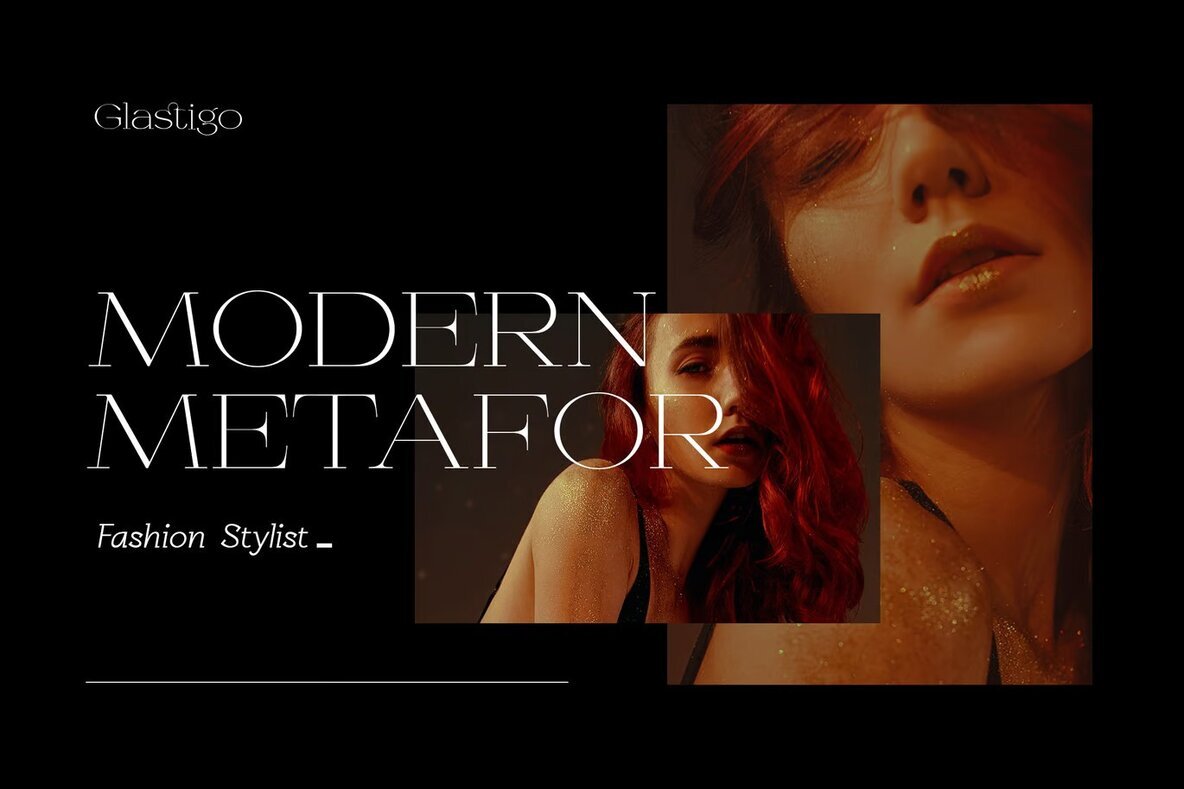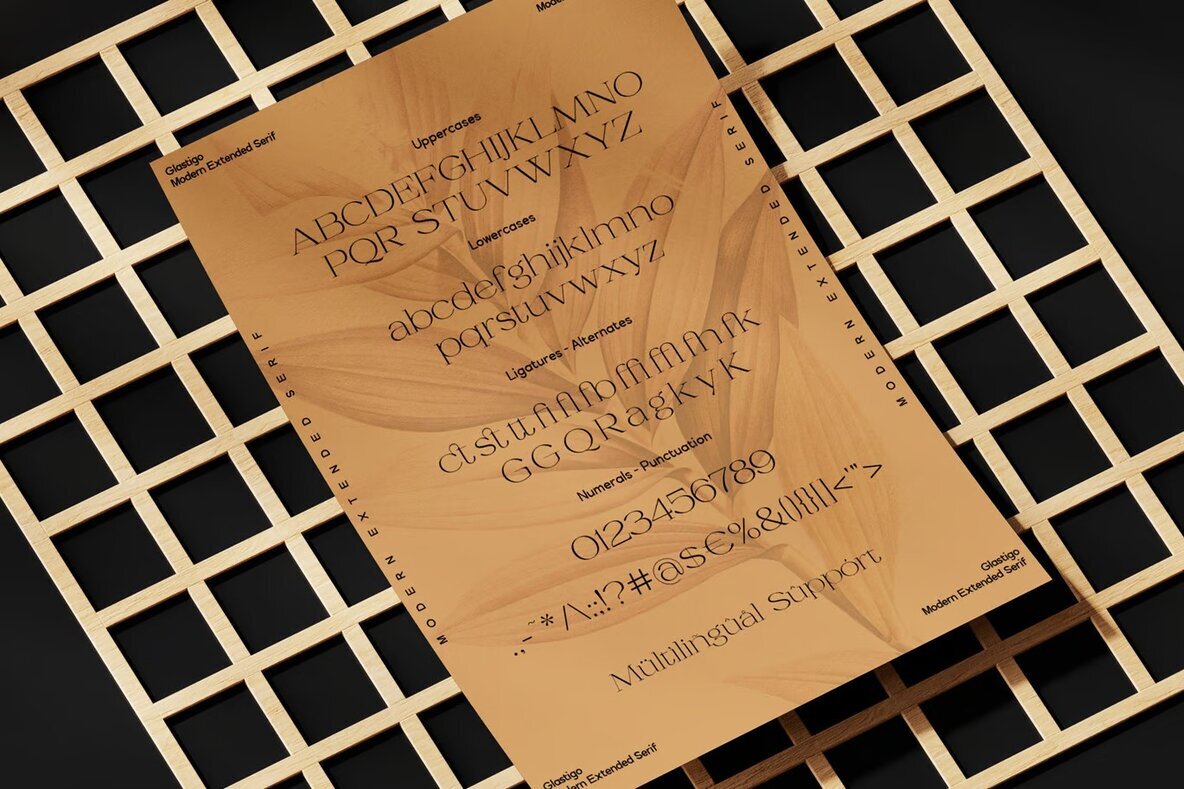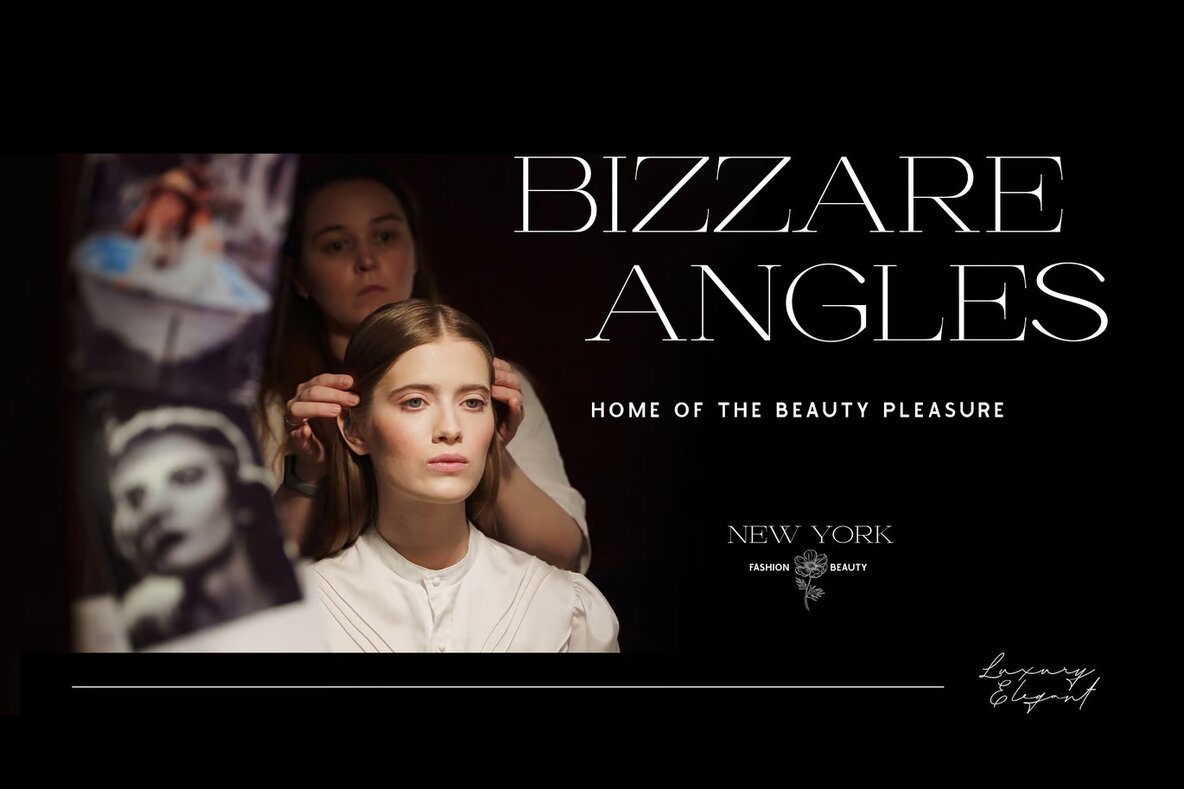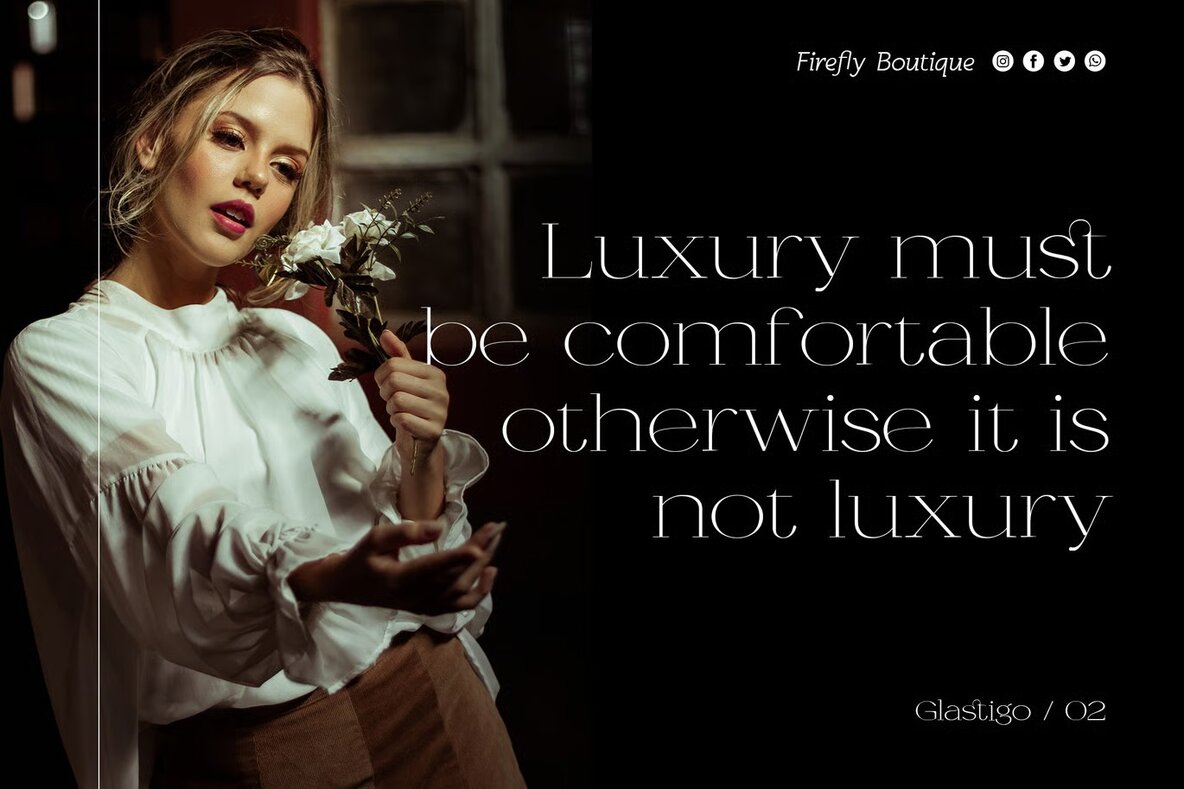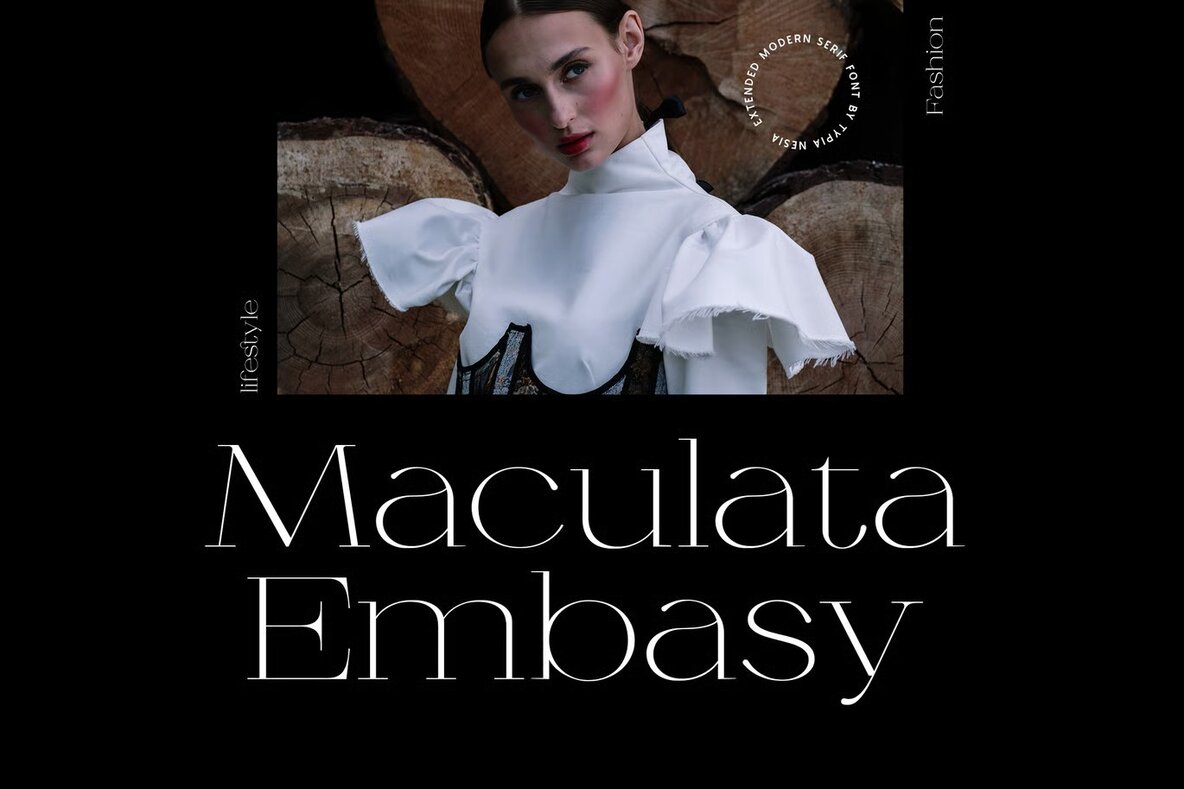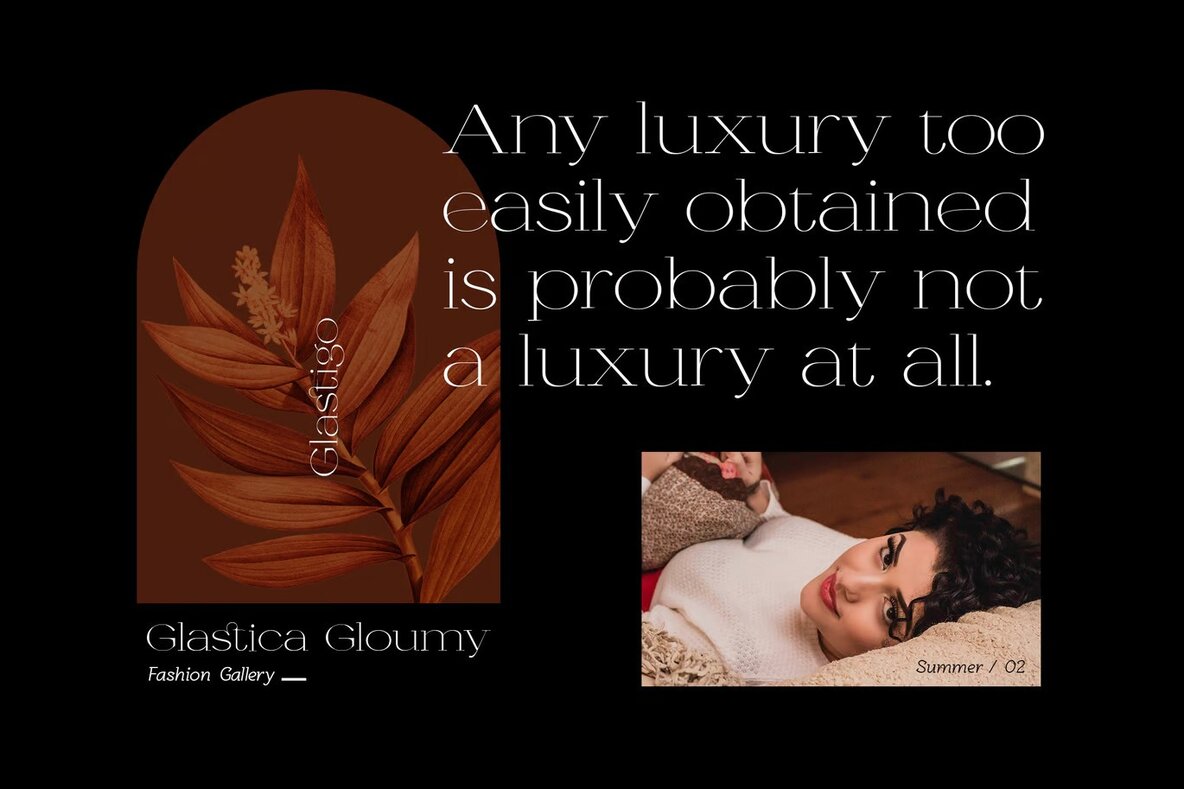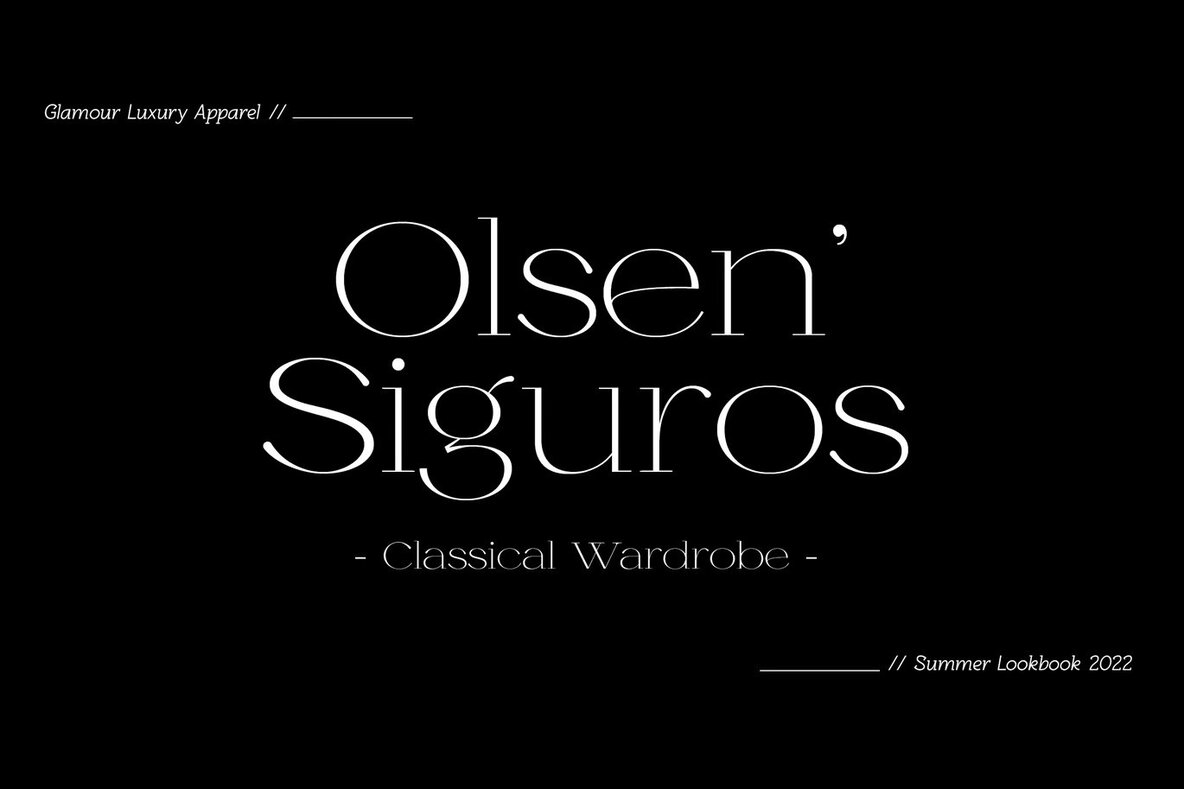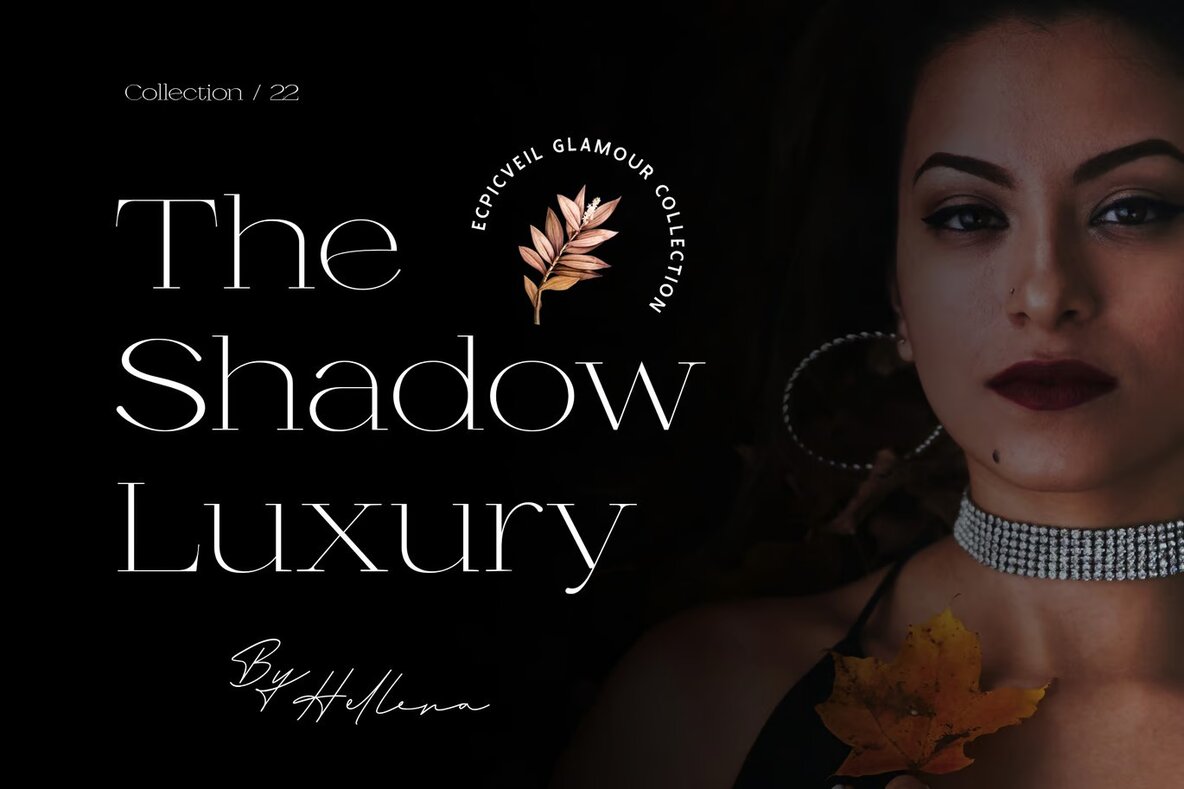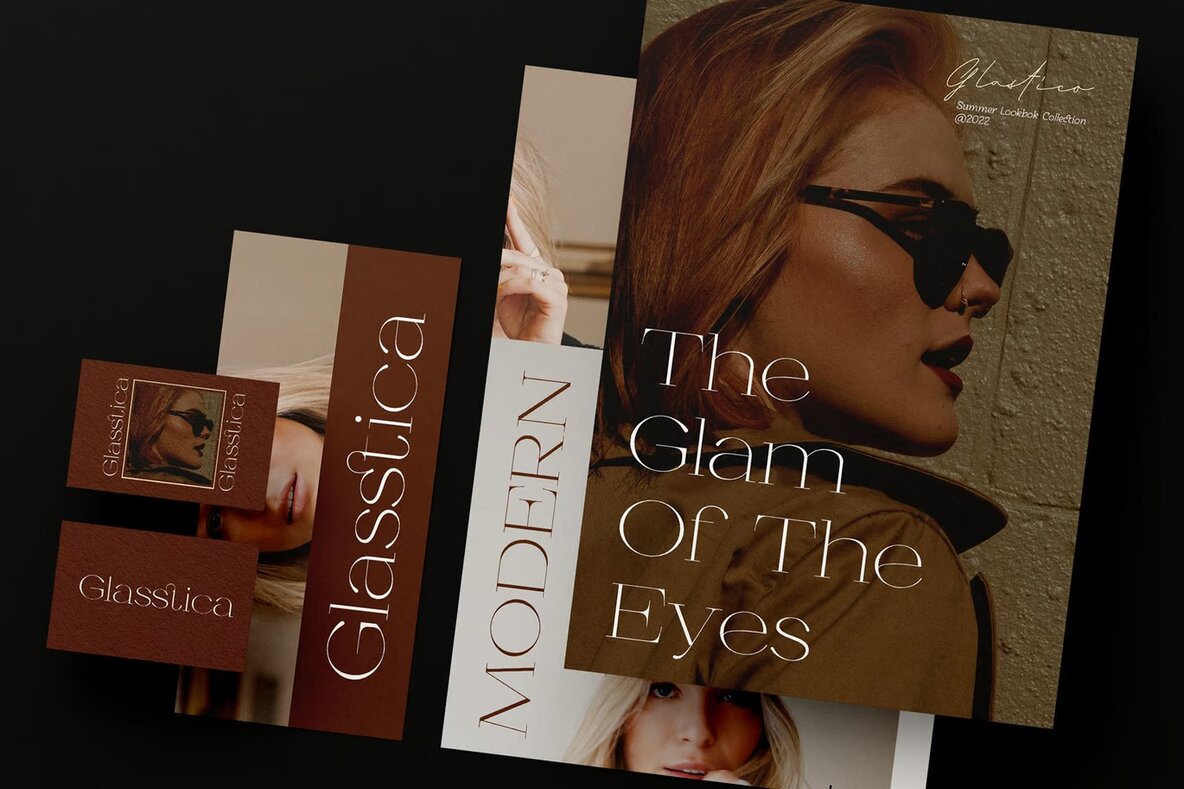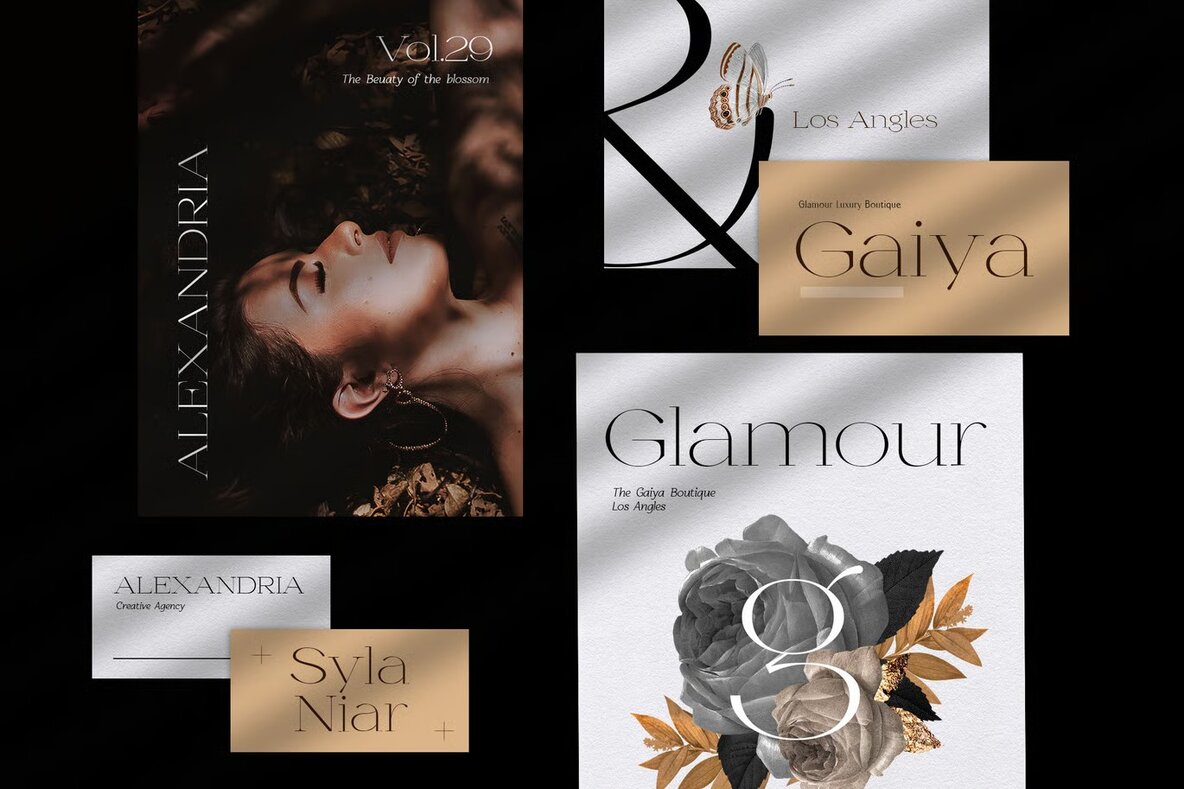
Glastigo Font
Glastigo Regular
Glastigo is a sophisticated luxury serif font designed for modern, elegant projects. Ideal for luxury logos, branding, classy editorial designs, and women's magazines, it brings a touch of vintage flair to cosmetic branding, fashion promotions, and art gallery branding. Its expanded serif style adds a sense of grandeur to museum projects, historical architecture, boutique branding, and stationery designs.
Perfect for blog design and modern advertising, Glastigo shines in card invitations, art quotes, home decor, book titles, and special events. Its versatile nature makes it a valuable asset for any project requiring a touch of luxury and elegance, ensuring your designs stand out with a timeless, royal vintage charm.